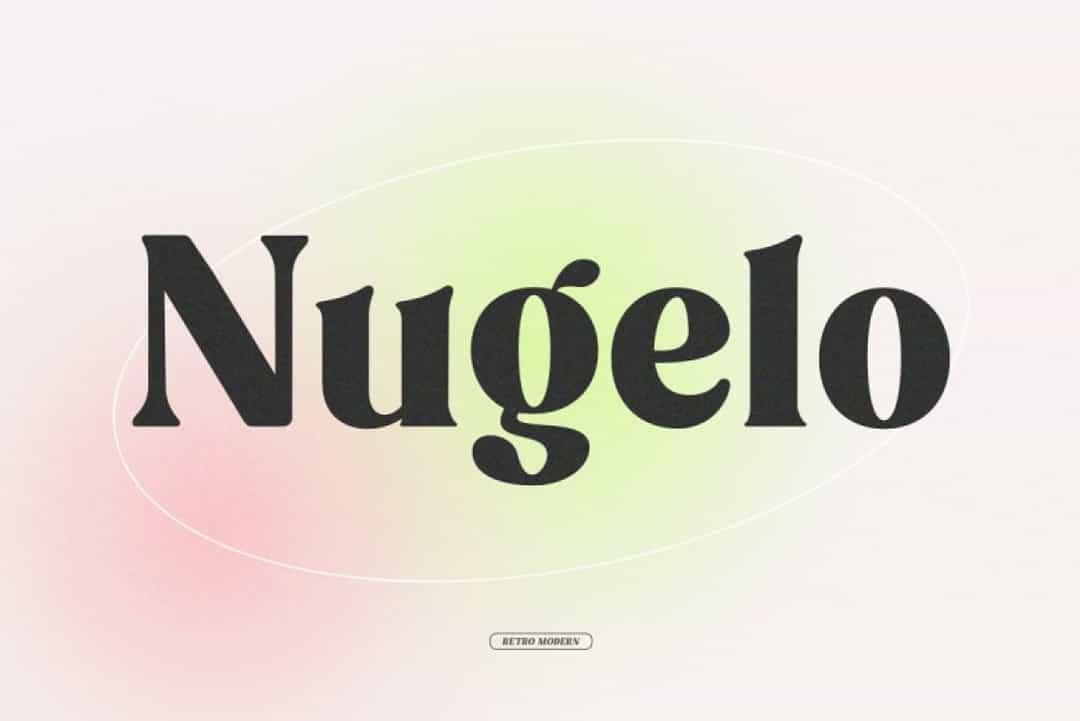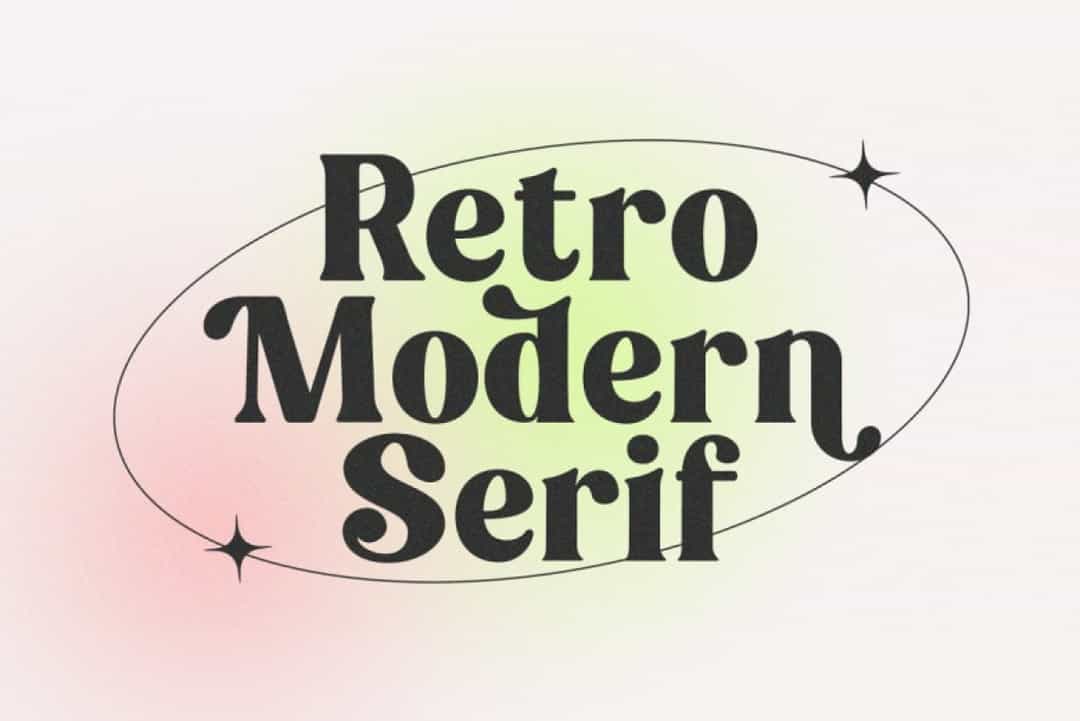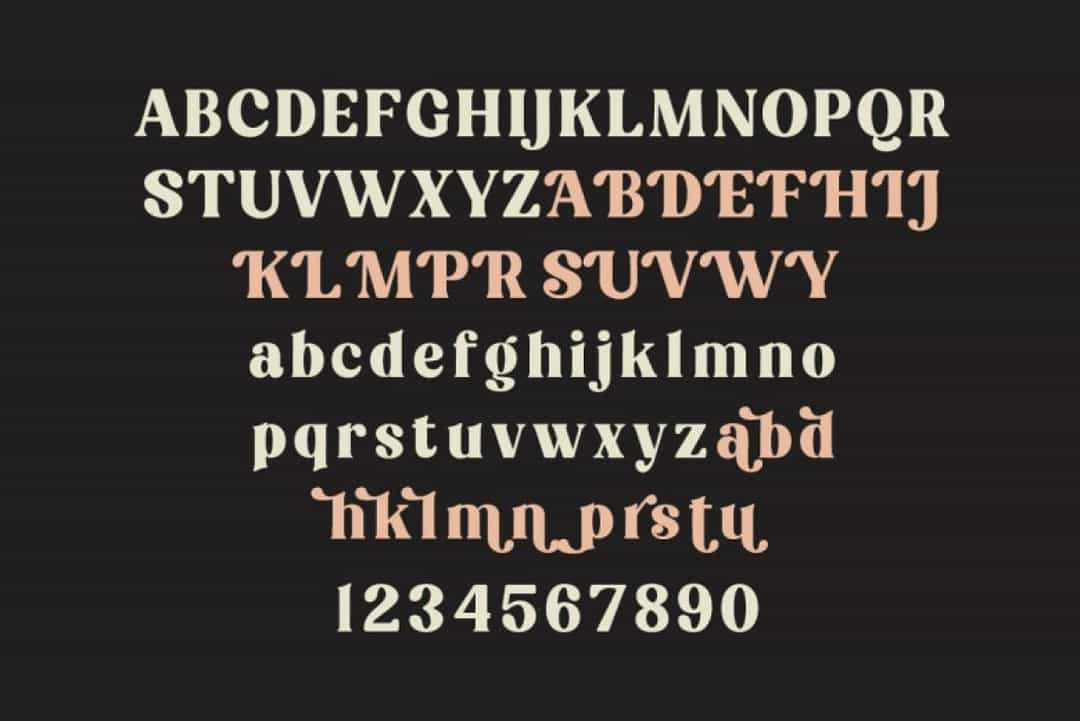
Nugelo can be described as an elegant modern serif font featuring stylish alternatives and Ligatures, complete with uppercase letters, lowercase letters, numerics and symbols for all your design needs like logos, branding posters, headlines and posters.